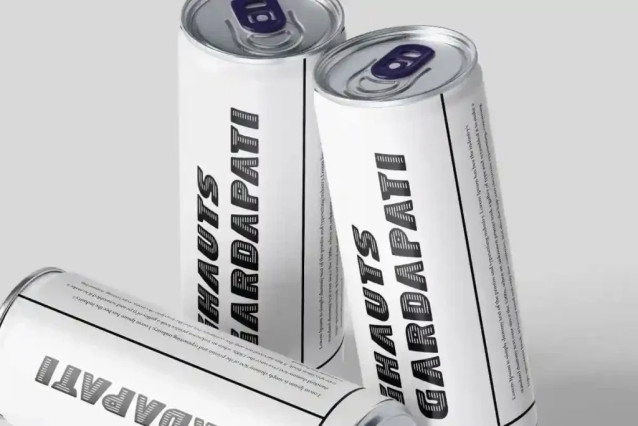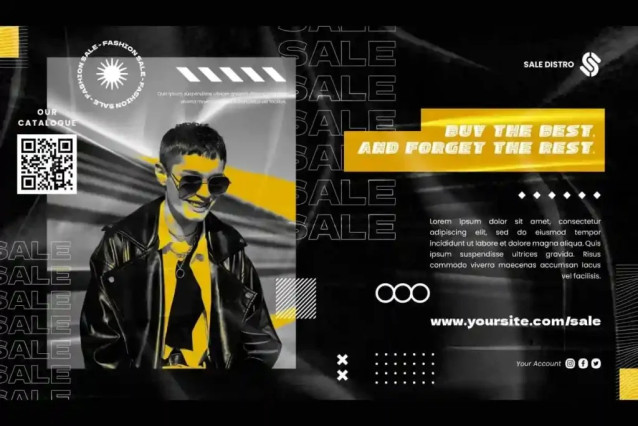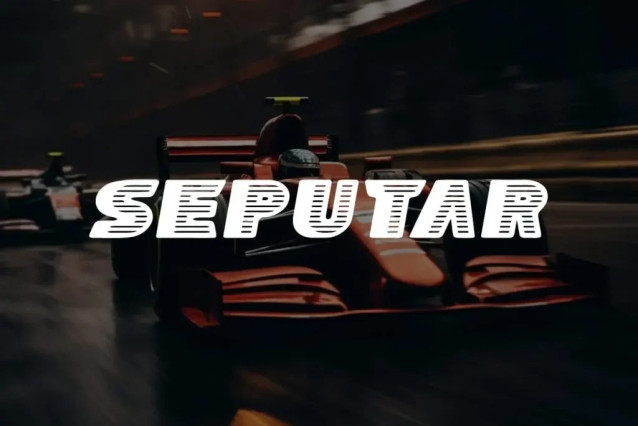
Seputar Display Font
Seputar Display Font is a bold strong yet fun racing and futuristic display font inspired by Op Art. This striped typeface is rendered in large sizes with a comic touch where visual impact is needed. Perfect for accessories & gifts, barber, beverages, cafes, car wash, fashion, games, graphic design, restaurant, sports,
Seputar Font includes full set of ALL CAPS for Uppercase and Lowercase Basic Characters, Numbers, Punctuation and Symbols. This unique typeface is able to provide good aesthetic value to your artwork. So it will be suitable for blogs, brochure, headers, label, logos, mockup, packaging design, screen print, signage, stationery, template, title, website,